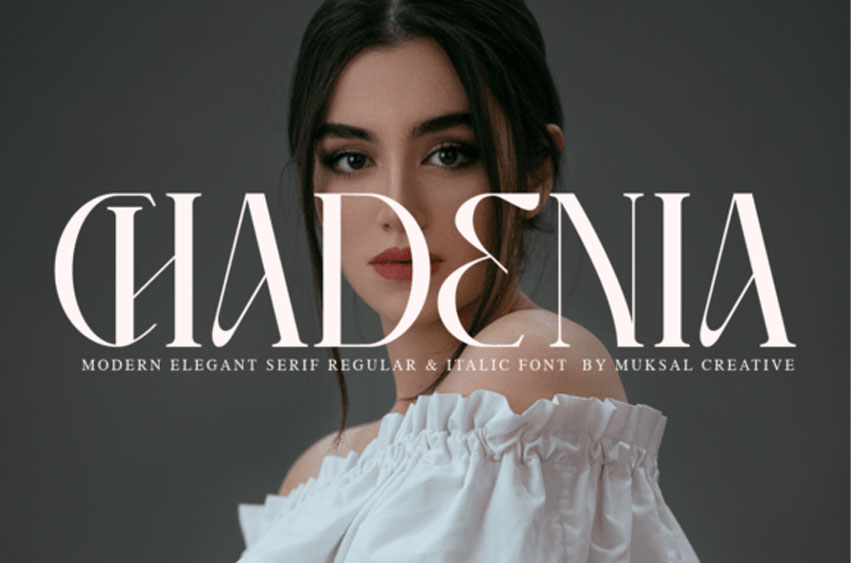
Chadenia Font
Chadenia Font is an elegant and bold serif font.
Fall in love with its incredibly versatile style and use it to create gorgeous wedding invitations, beautiful stationery art, eye-catching social media posts, and much more!